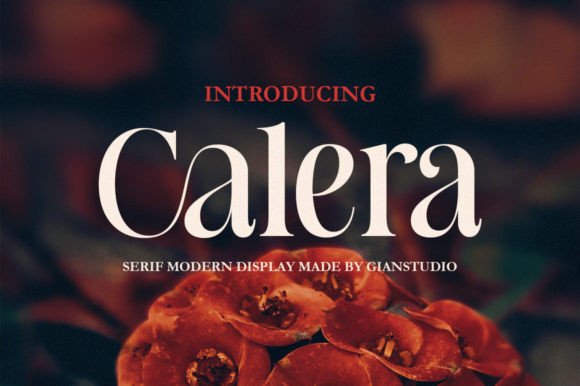
Introducing Calera Font: Elegant, Graceful, and Timeless
Are you looking for a font that exudes elegance, sophistication, and timelessness? Look no further than Calera Font. This versatile font is perfect for designers who want to add a touch of classic appeal to their projects. With its intricate details, multilingual support, and precision, Calera Font is an excellent choice for a wide range of design applications.
The Story Behind Calera Font
Calera Font is a meticulously crafted font that has been hand-drawn with great care. Each letter has been designed to perfection, ensuring that every stroke, curve, and line is precise and elegant. The font’s creator has paid attention to every detail, making it an exceptional choice for designers who value quality and sophistication.
Key Features of Calera Font
Timeless Classic Appeal
Calera Font boasts a classic appeal that never goes out of style. Its elegant design ensures that your projects will look sophisticated and refined, making it perfect for designs that require a touch of luxury.
Versatility and Alternatives
Calera Font comes with more than a dozen alternatives and ligatures, providing you with a range of options to choose from. This versatility ensures that you can experiment with different styles and find the perfect fit for your project.
Multilingual Support
Calera Font offers multilingual support, making it an excellent choice for designers who work with clients from diverse linguistic backgrounds. Whether you’re designing for a global audience or a specific language group, Calera Font has got you covered.
The Benefits of Using Calera Font
Perfect for Various Design Applications
Calera Font is perfect for a wide range of design applications, including:
- Logos: Create stunning logos that exude elegance and sophistication.
- Notes: Add a touch of class to your notes and stationery.
- Posters: Design eye-catching posters that grab attention.
- T-shirts: Create stylish and elegant designs for t-shirts.
- Stickers: Add a touch of sophistication to your stickers.
- Mugs: Design beautiful and elegant mugs.
- Labels: Create stunning labels that stand out.
Variety of Weights for Different Projects
Calera Font comes in various weights, providing you with a range of options to choose from. Whether you’re designing for a bold statement or a subtle look, Calera Font has the perfect weight for your project.
Why Choose Calera Font?
Exceptional Quality
Calera Font is of exceptional quality, ensuring that your designs look professional and refined.
In conclusion, Calera Font is an exceptional font that offers elegance, sophistication, and timelessness. With its versatile design, multilingual support, and precision, Calera Font is perfect for a wide range of design applications. Whether you’re a professional designer or a DIY enthusiast, Calera Font is an excellent choice for your next project.